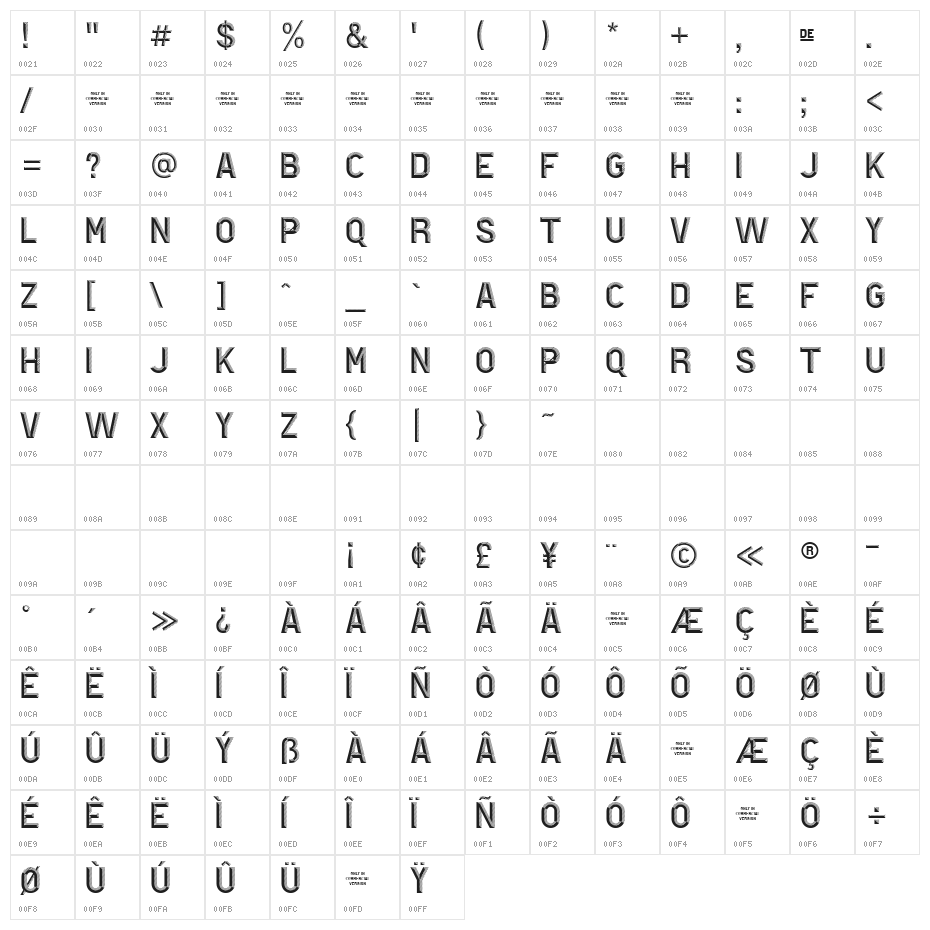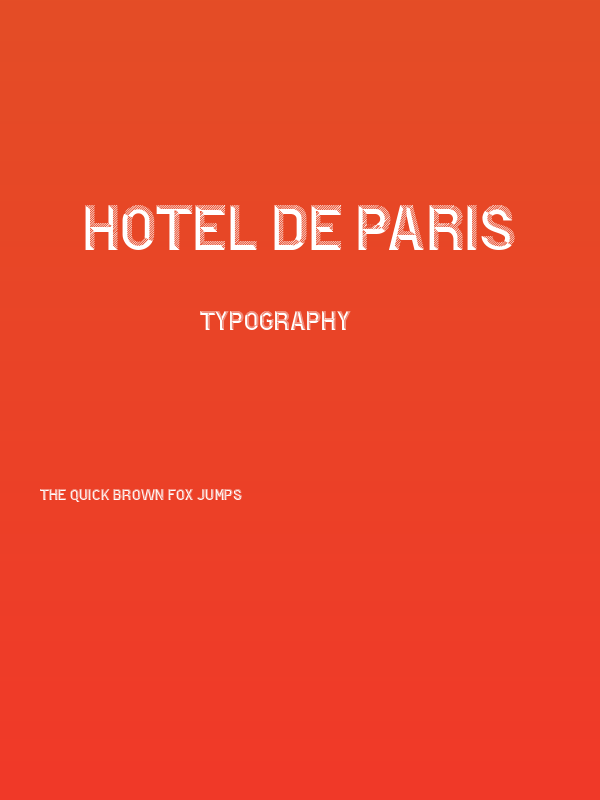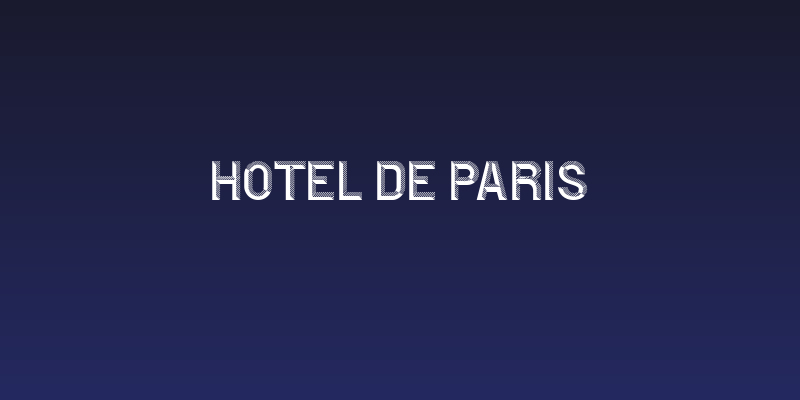
Hotel De Paris Font
Hotel De Paris Description
This font features a bold and striking design with a unique diagonal line pattern filling each character, creating a sense of depth and texture. The uppercase letters are prominent and commanding, making them ideal for attention-grabbing headlines or titles. The characters are well-defined with a modern, geometric style that adds a contemporary flair. The font's distinct appearance makes it suitable for projects that require a strong visual impact, such as branding, posters, or digital media. Its decorative nature lends itself to creative uses where a bold statement is needed.
| Proposed Projects | Ideal for branding, posters, digital media, and any project needing a strong visual impact. |